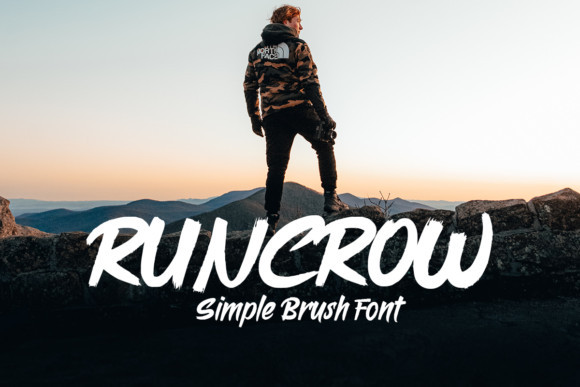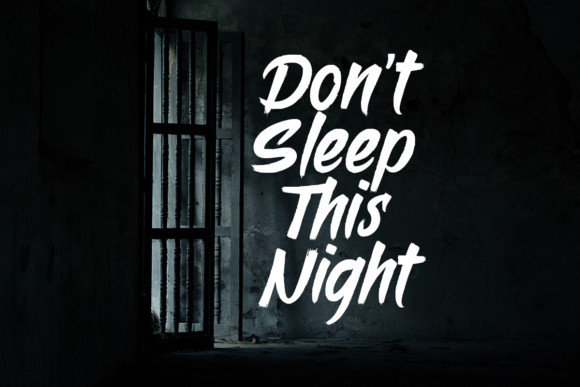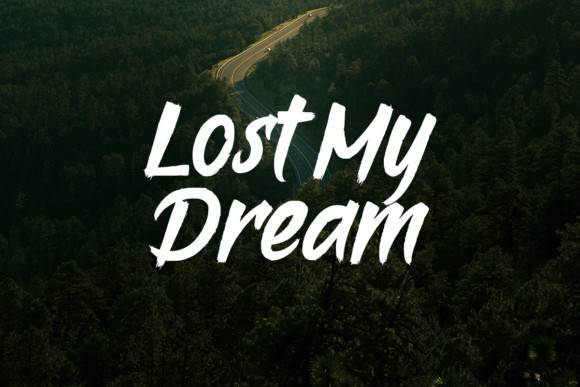
Runcrow Font
Runcrow is a casual, fun sans serif font, created by using a brush pen. Clean and a little bit quirky, this font is the perfect fit for all of your logos, branding, social media, and crafty DIY projects.